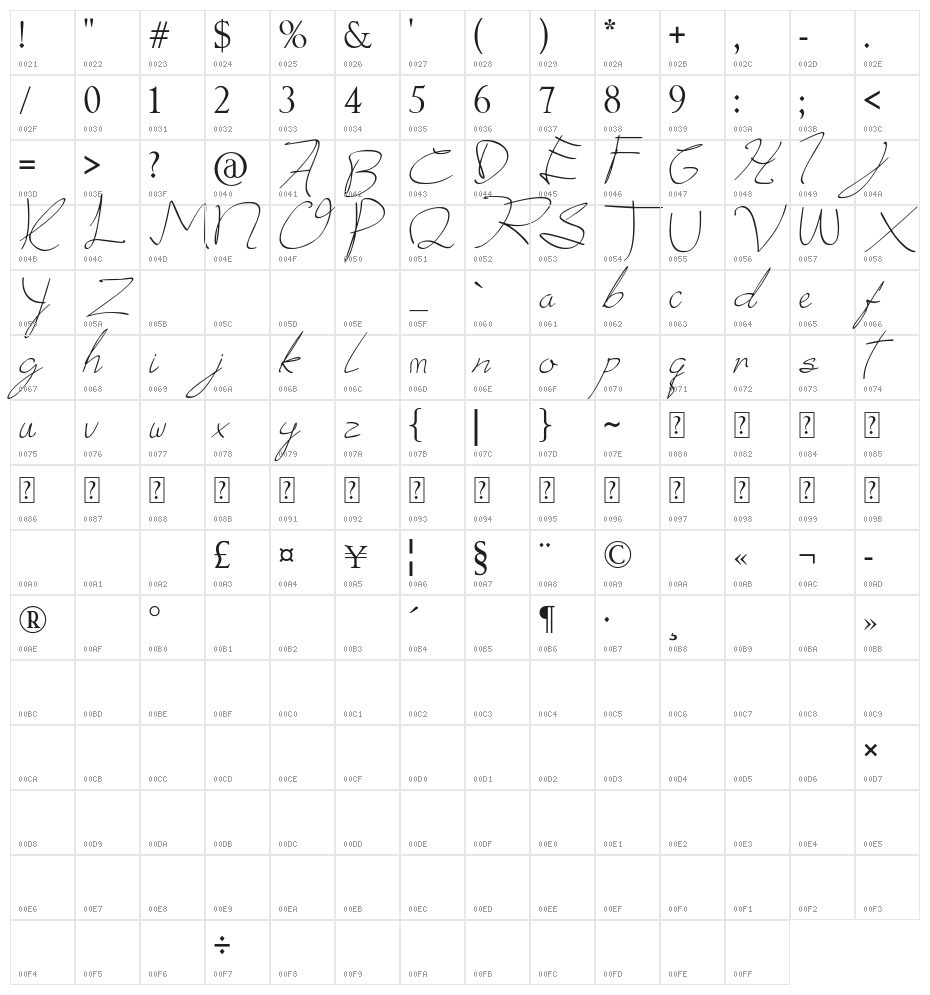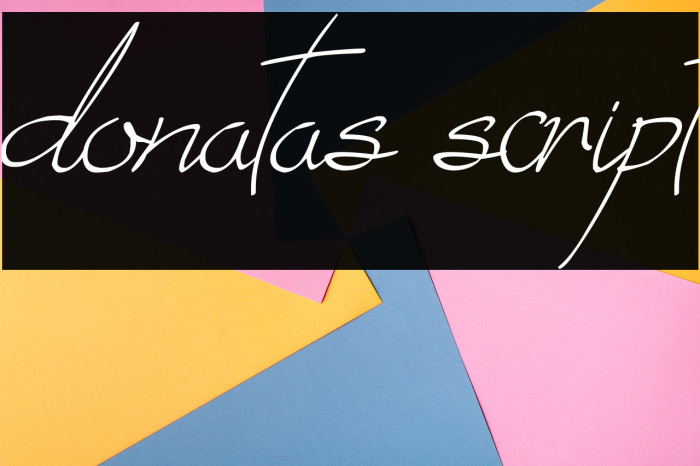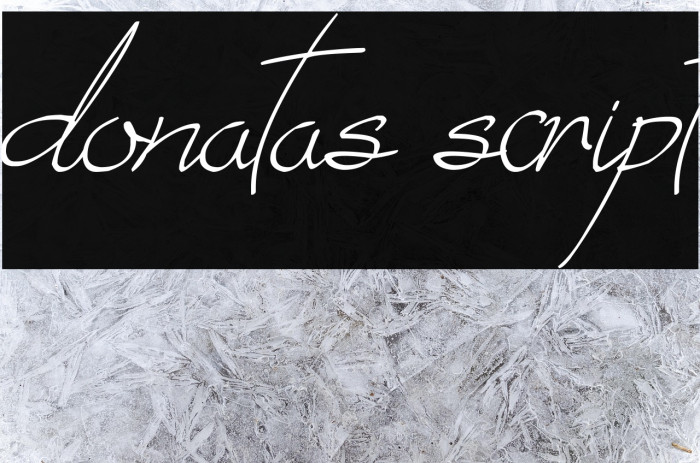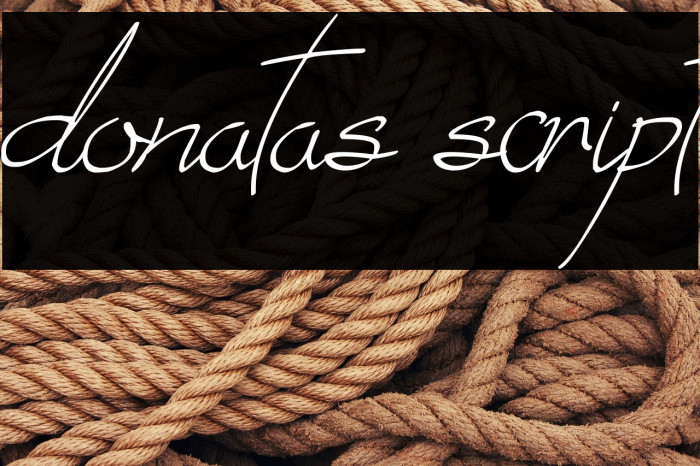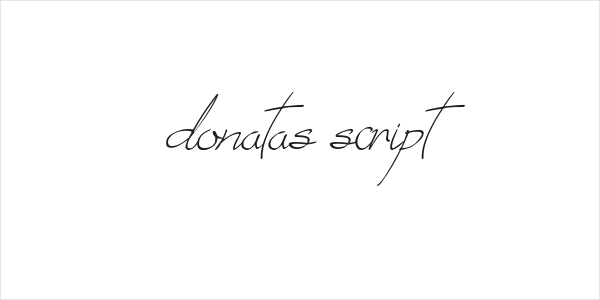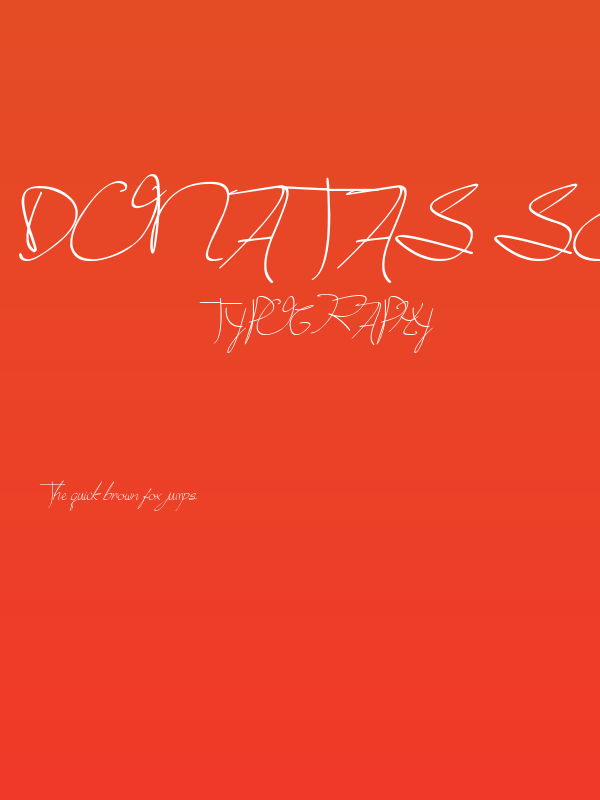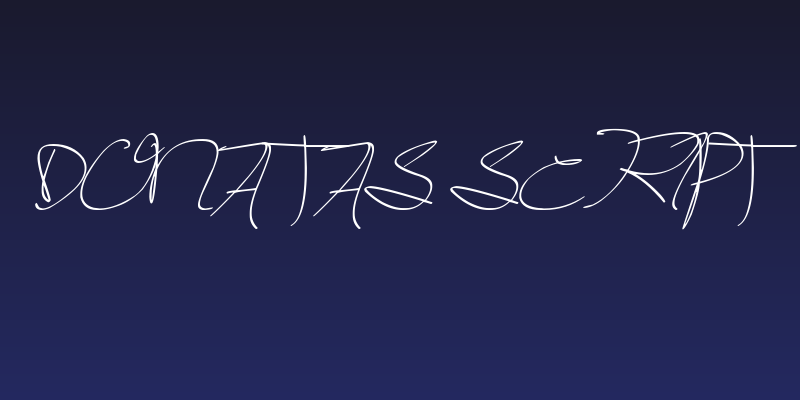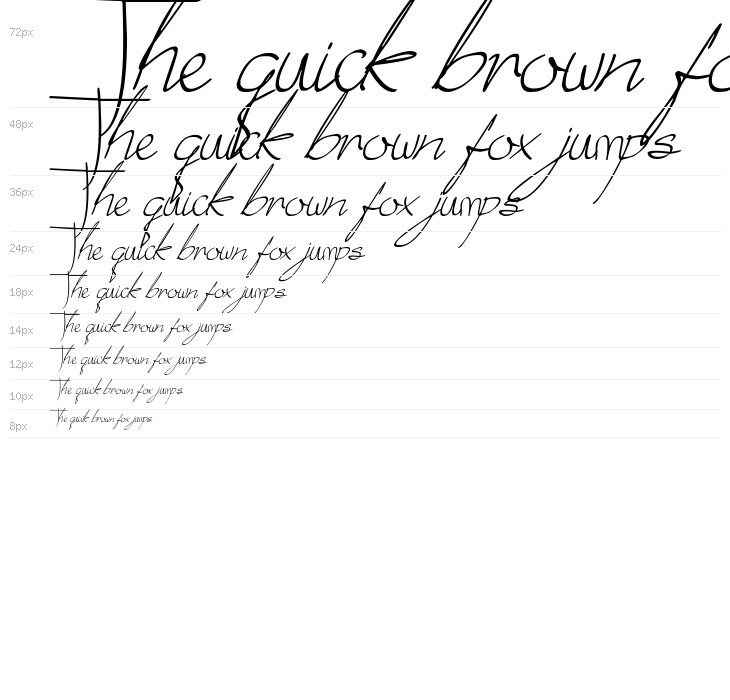
donatas script Font
| Stil general | Elegant, Handwritten |
| Caz de utilizare | Logos, Invitations, Personal Branding |
| Proiecte propuse | Ideal for wedding invitations, personal branding, greeting cards, and elegant packaging designs. |